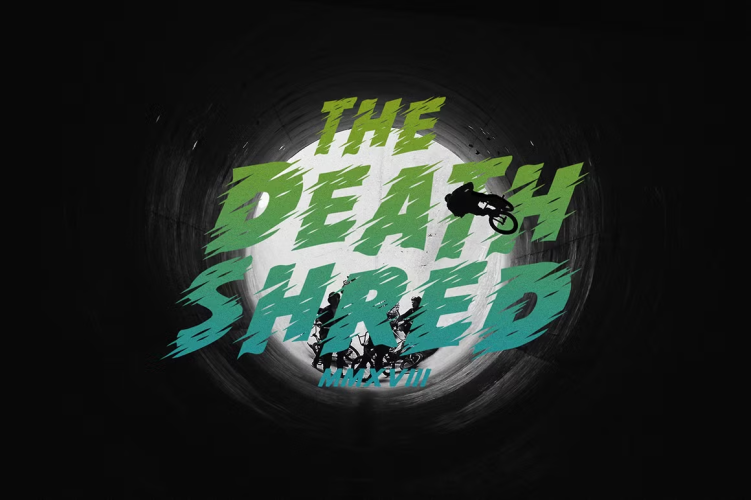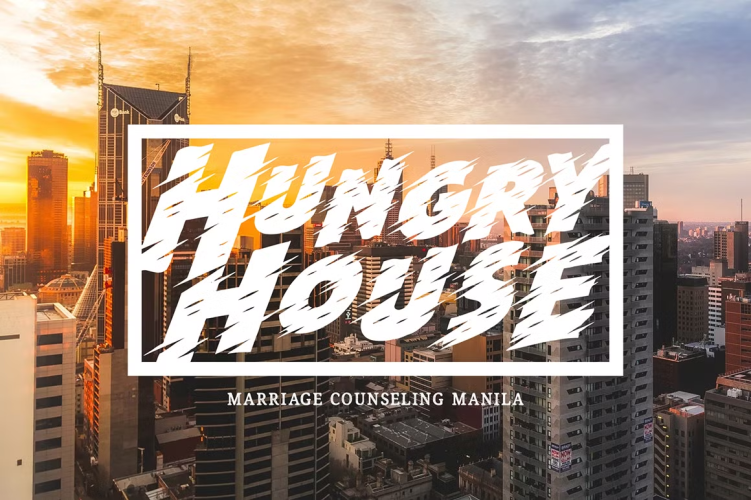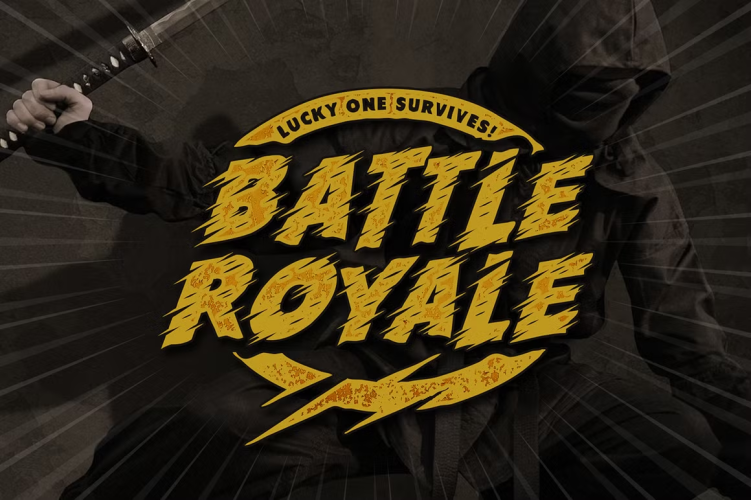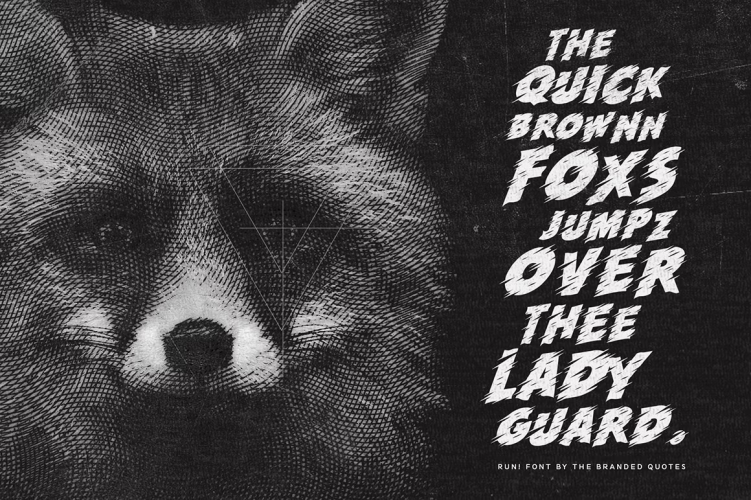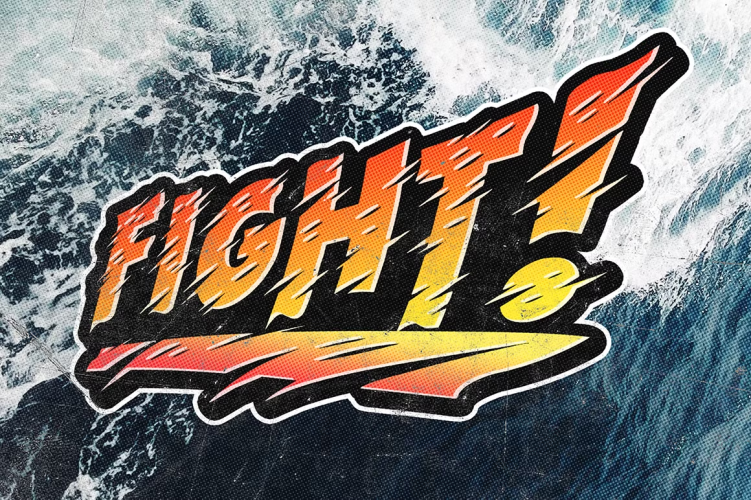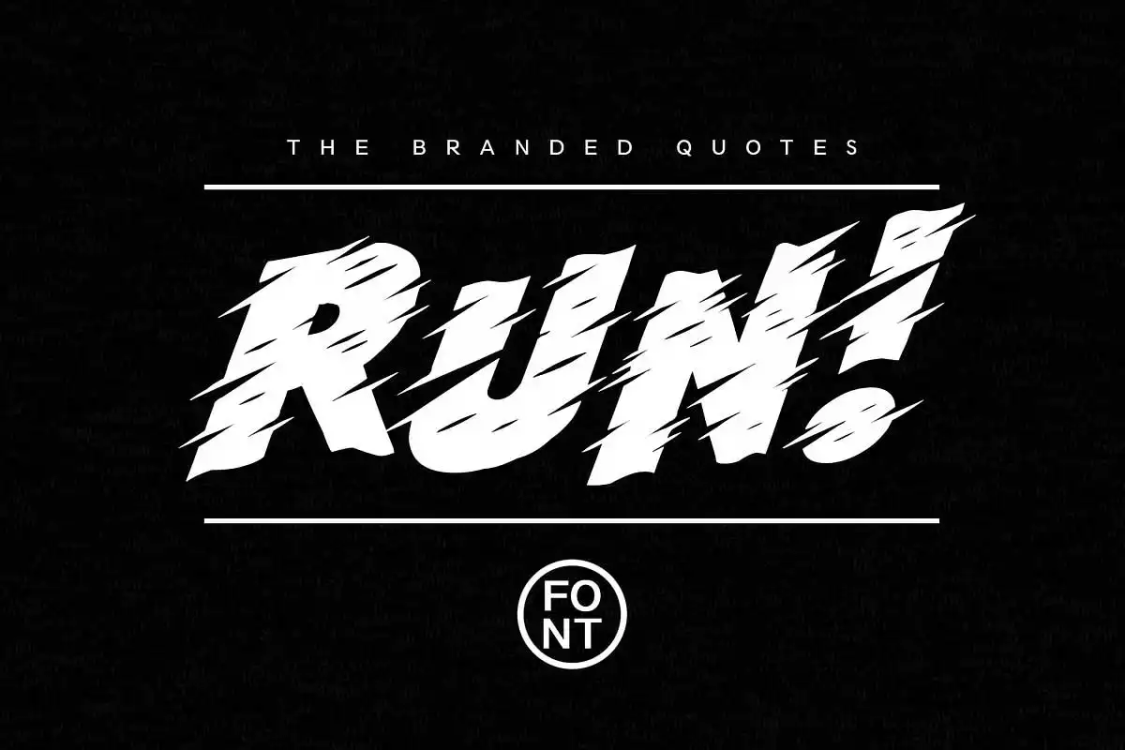
Run Font
Run font is an Attention-seeking font! This slanted Sans is one of a kind. It has all the energy and stamina to fit from A to Z. It’s a perfect build for your loud design projects. Now, with a few effects applied, you can bring your presentations to the next level! Even with flat colours, Run! Font pokes you in the eye.
Run! Font contains Capitals, Numerals and Punctuation. To form an excellent output, combine uppercase and lowercase for a better result.
Where Run Font works best
Run Font is built for size: event posters, hero headlines and billboard-style layouts.
High contrast display type like Run Font reads instantly in thumbnails and motion graphics.
What is Run Font good for?